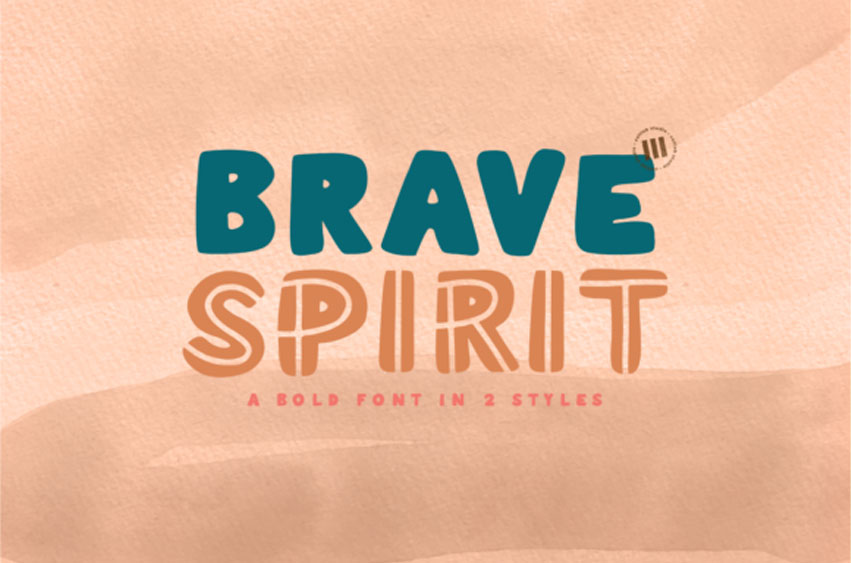
Brave Spirit Font
Brave Spirit Font is a fun and eye-catching display font.
Add it to your most creative ideas and notice how it makes them come alive!